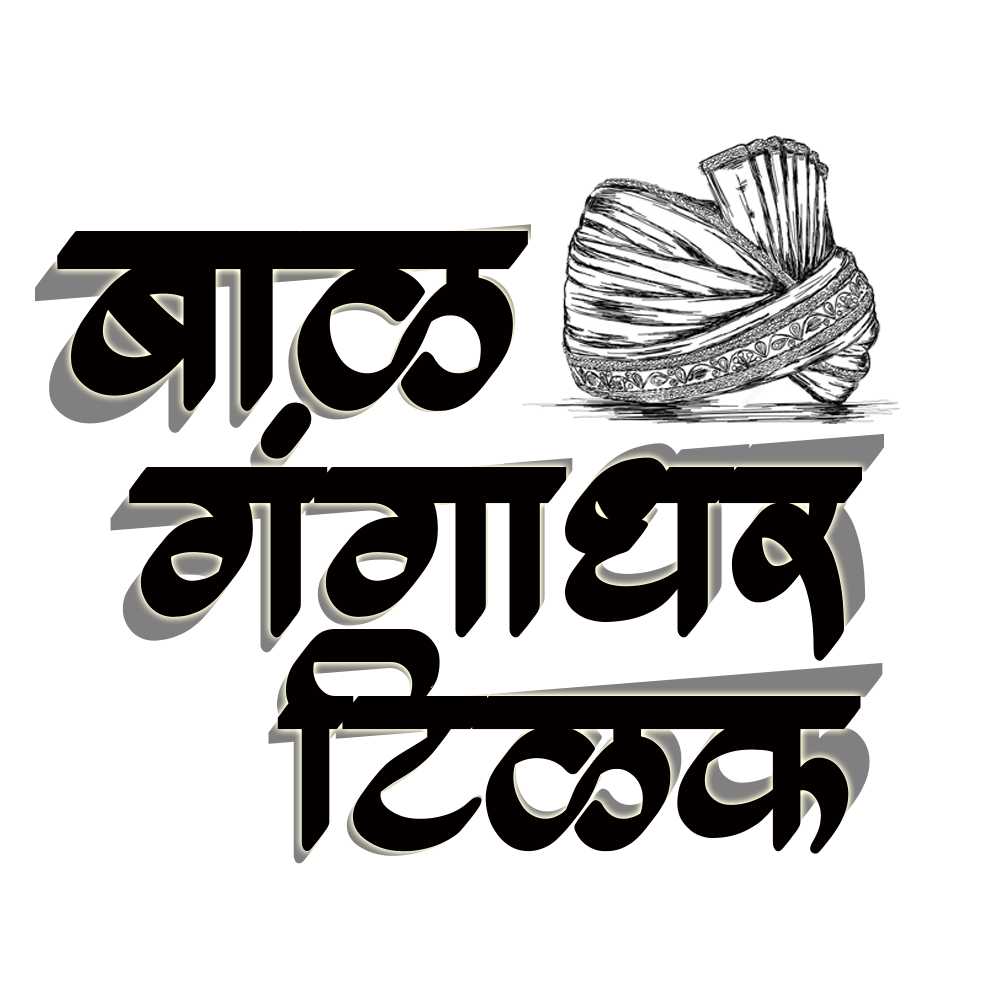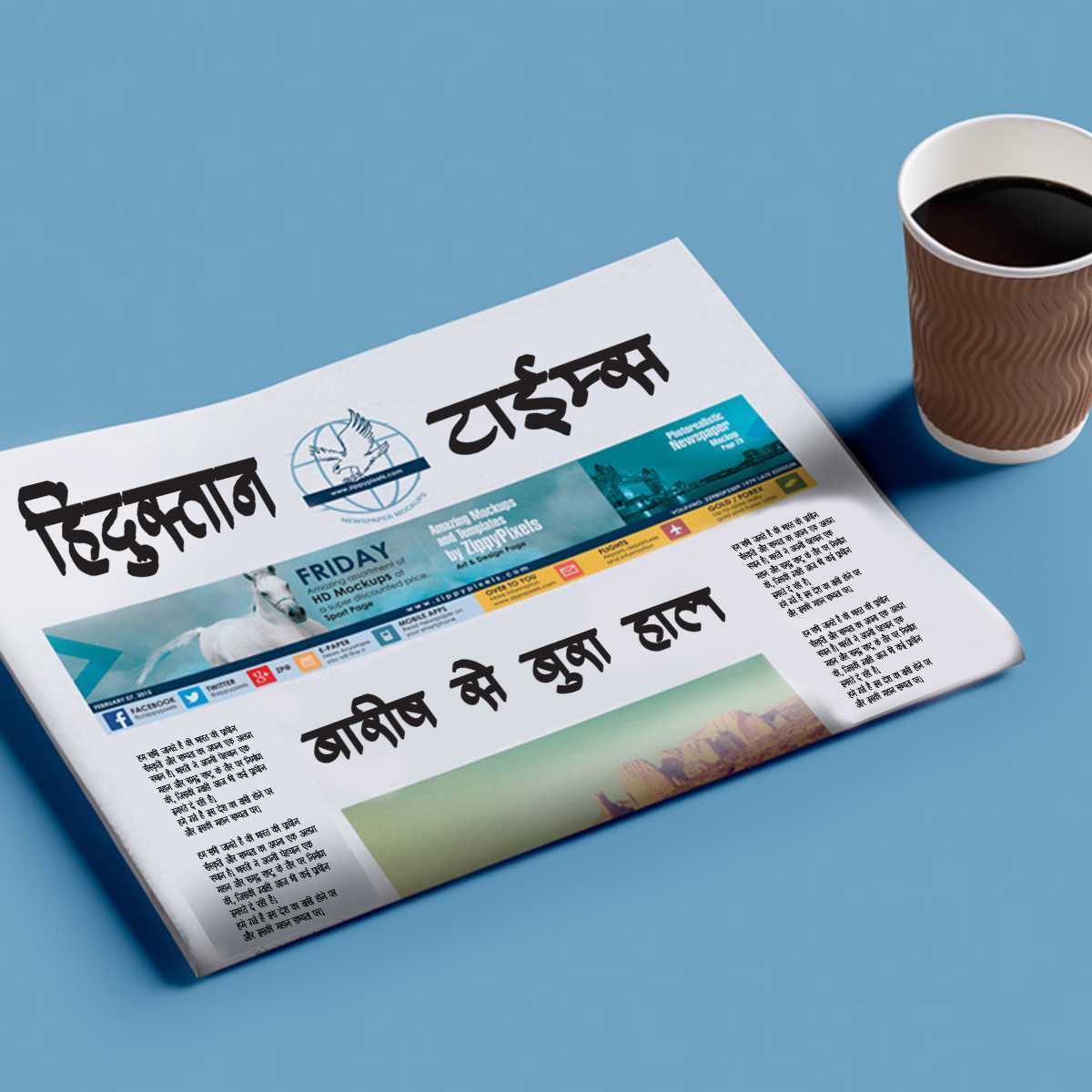
AMS Calligraphy 8
Discover the classic beauty of AMS Calligraphy 8, a Hindi and Marathi font that embodies the artistry of traditional calligraphy. With its clean and balanced design, this AMS font adds a touch of sophistication to any project.
About AMS Calligraphy 8 Font
Discover the classic beauty of AMS Calligraphy 8, a Hindi and Marathi font that embodies the artistry of traditional calligraphy. With its clean and balanced design, this AMS font adds a touch of sophistication to any project. This calligraphy font combines elegance with functionality, making it perfect for various design applications.
AMS Calligraphy 8 is a professionally crafted calligraphy typeface that brings clarity and style to your projects. Designed with attention to detail, it supports hindi and marathi characters flawlessly.
Whether you're working on wedding-materials, invitations, logos, or other creative projects, AMS Calligraphy 8 delivers consistent performance across both digital and print media. This carefully designed typeface ensures readability and visual appeal in all your design work.
About AMS Calligraphy 8 Typography Style
AMS Calligraphy 8 is a professionally crafted calligraphy font that exemplifies modern Hindi typography design. This free font is perfect for designers seeking professional branding and logo design projects.
Available in 1 weight and supporting hindi, marathi scripts, AMS Calligraphy 8 offers exceptional versatility for both digital and print media. Whether you're working on wedding-materials, invitations, logos, this carefully designed typeface ensures consistent quality and professional results across all your typography projects.